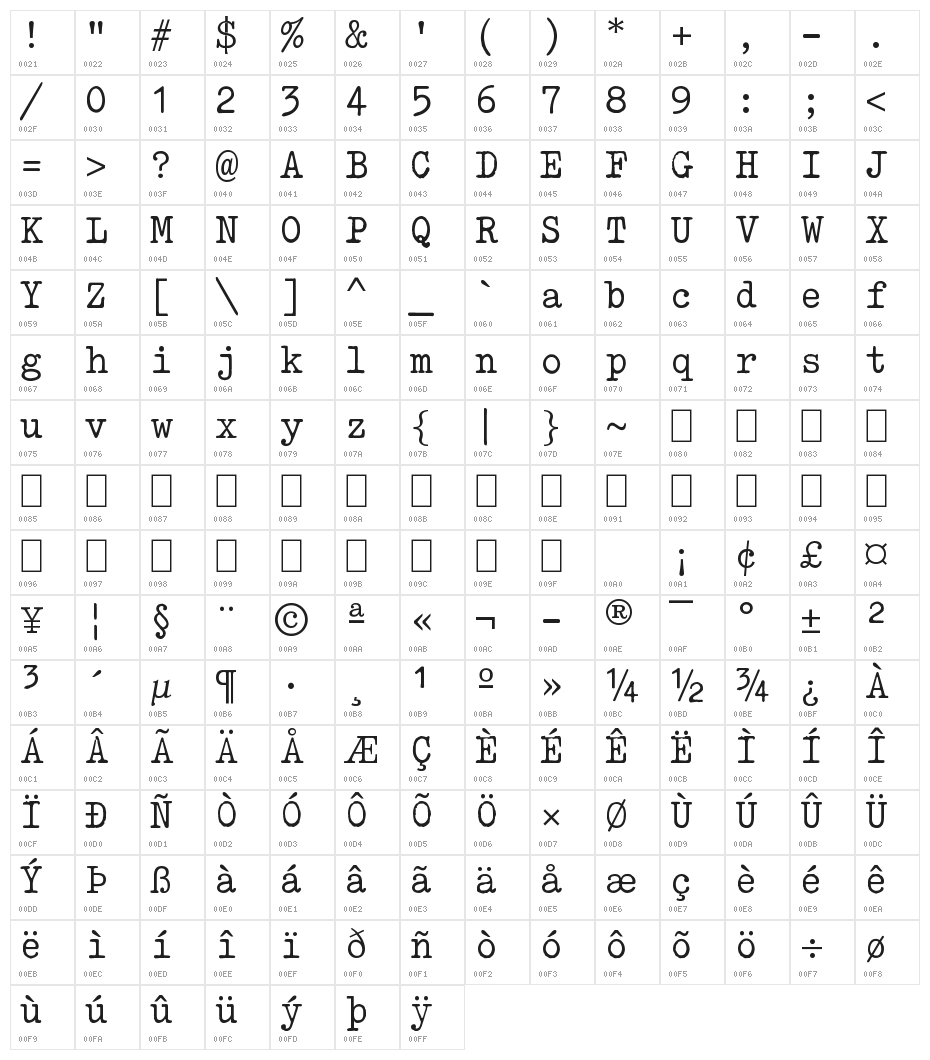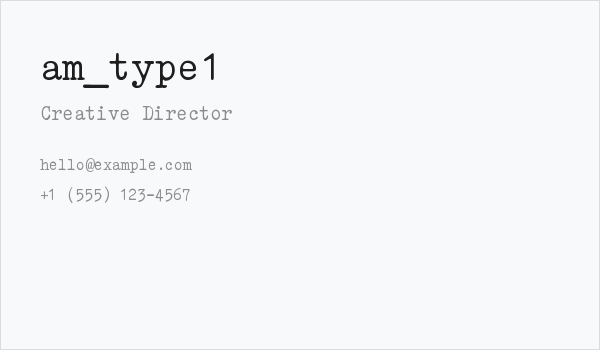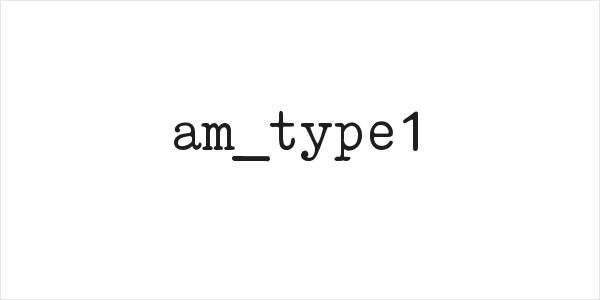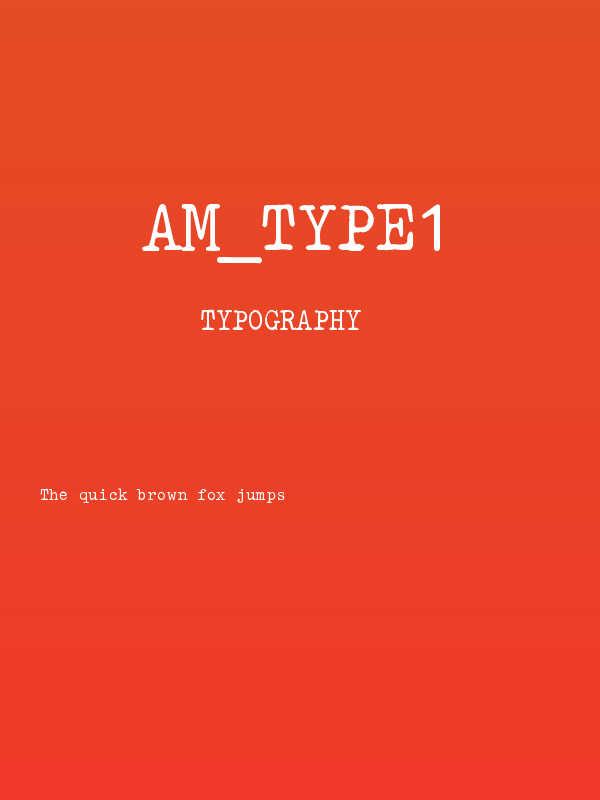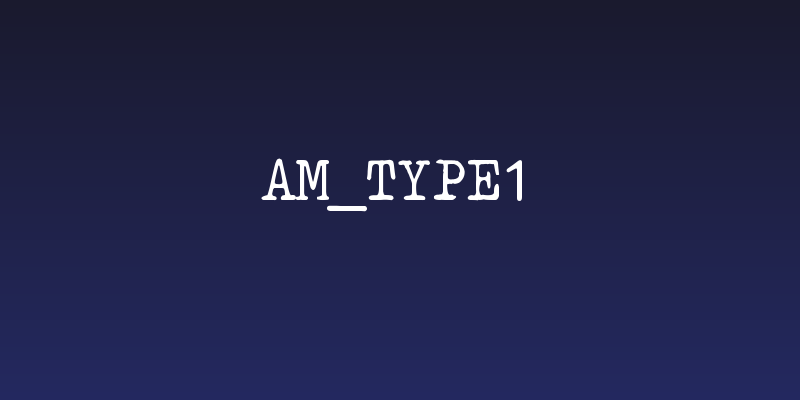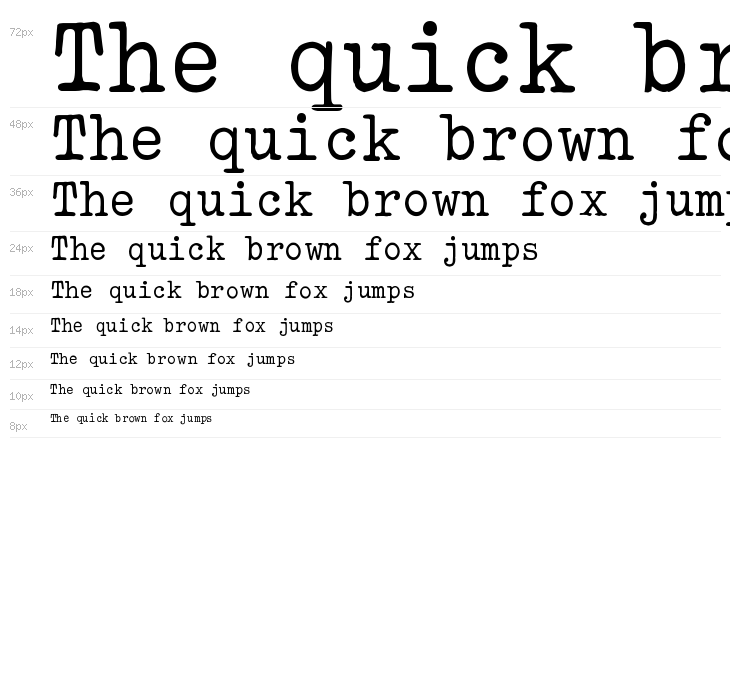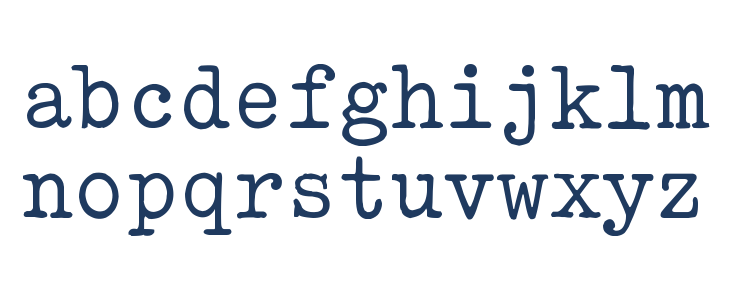
am_type1 Font
am_type1 Description
This typeface features a bold, slab serif design with a distinct vintage aesthetic. The letters are characterized by thick, uniform strokes and pronounced serifs, giving them a strong, impactful presence. The uppercase letters are robust and commanding, while the lowercase letters maintain a consistent style with slightly rounded edges, adding a touch of softness. The numerals are clear and bold, ensuring readability. Special characters are well-integrated, maintaining the overall style. This font's design is reminiscent of typewriter fonts, offering a nostalgic feel with a modern twist. Its boldness and clarity make it suitable for various design applications where a strong visual impact is desired.
| Overall Style | Vintage |
| Proposed Projects | Ideal for retro-themed posters, branding, headlines, and any project requiring a vintage or typewriter aesthetic. |